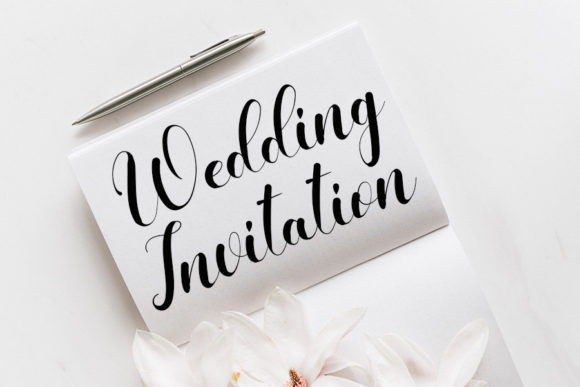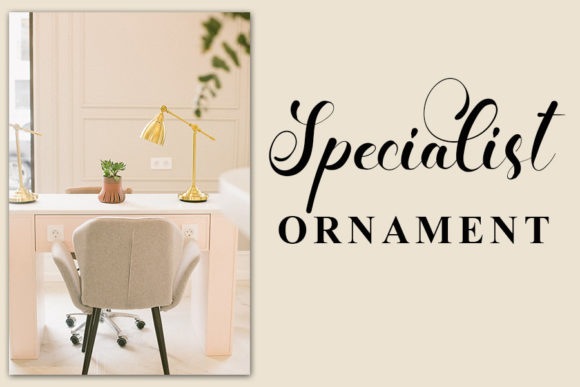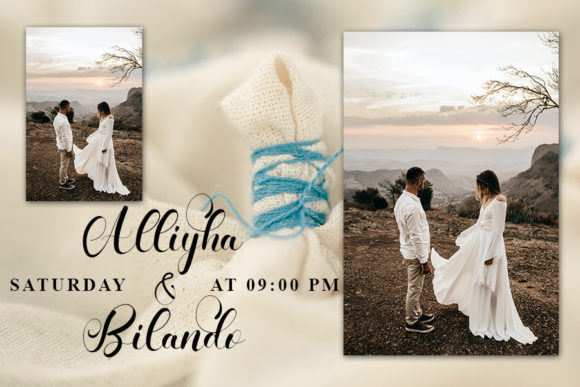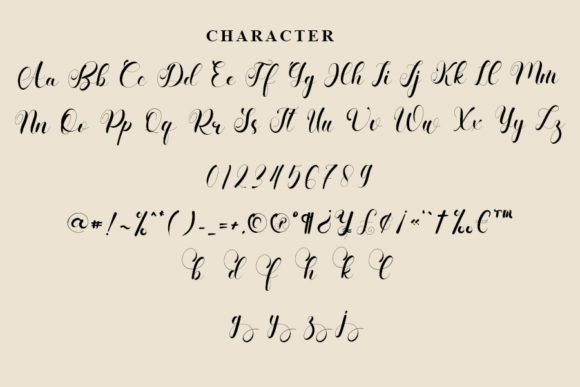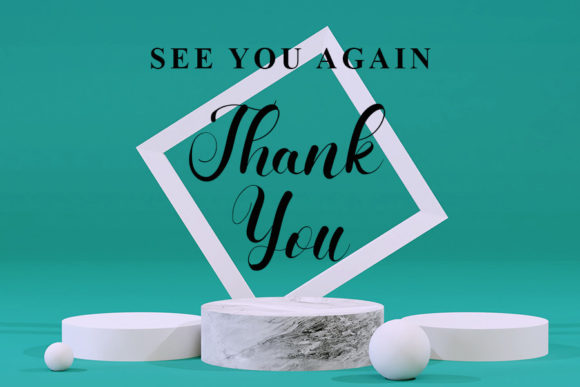
Have you ever stared at a blank page, struggling to find the perfect font to bring your design to life? You’ve got a clear idea in your head, but the words just aren’t flowing. That’s where the magic happens, and the perfect font can make all the difference.
Enter the Honeyloves Font, a tall, casual, and relaxed handwritten font that’s as versatile as it is beautiful. Its natural and unique style makes it incredibly fitting to a large pool of designs, from wedding invitations to social media graphics and beyond. Whether you’re a seasoned designer or just starting out, the Honeyloves Font is the perfect addition to your toolkit.
Honeyloves Font Key Features
- Unique Characteristics: Honeyloves Font features a unique blend of modern and vintage elements, with intricate details and ornate flourishes, making it perfect for adding a touch of elegance to designs.
- Character Set: The font includes a comprehensive character set, including uppercase and lowercase letters, numbers, punctuation marks, and special characters, making it suitable for a wide range of applications.
Honeyloves Font Review
Overall, I think Honeyloves Font has some great qualities, but also some areas that need improvement.
- The font is highly customizable, allowing users to adjust the weight, size, and color to their liking.
- The font has a unique, handwritten feel that’s perfect for creative projects, such as social media graphics, posters, and wedding invitations.
- The font is available in a range of weights, making it suitable for both display and body text.
- The font may not be suitable for formal or professional projects, as its handwritten feel can come across as unpolished.
- The font may not be as readable at smaller sizes, making it less suitable for body text in smaller contexts.
- The font may not be as versatile as some other fonts, limiting its use in a variety of design contexts.
Honeyloves Font is a great choice for designers who want a unique, creative font for their projects. While it may not be suitable for all design contexts, it’s perfect for projects that require a touch of whimsy and personality. With its high level of customization and range of weights, it’s a great addition to any designer’s toolkit.
Common Use Cases for Honeyloves Font
Honeyloves Font is ideal for:
- Quirky and playful designs.
Tips for Getting the Most Out of Honeyloves Font
To get the most out of Honeyloves Font, try:
- Pairing it with bold, bright colors.
- Using it for headings and titles.
- Experimenting with different font